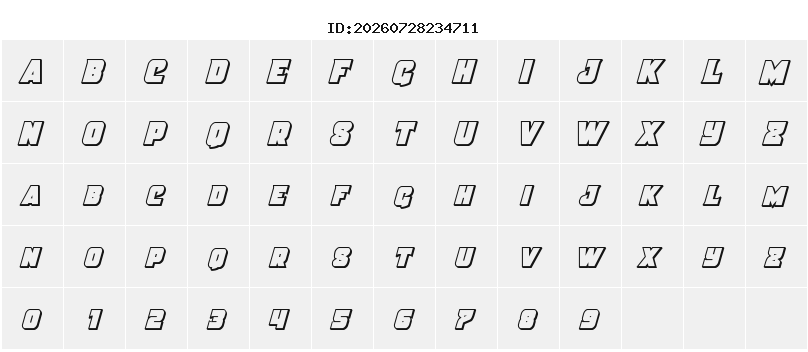
Justice Condensed Outline Preview
• Font Name: Justice Condensed Outline
• Font Style: Condensed Outline
• Full Font Name: Justice Condensed Outline
About Justice Condensed Outline.ttf
Justice Condensed Outline.ttf is a modern, elegant sans-serif font designed for ultimate readability and visual harmony. Perfect for branding, headlines, web design, and print materials.